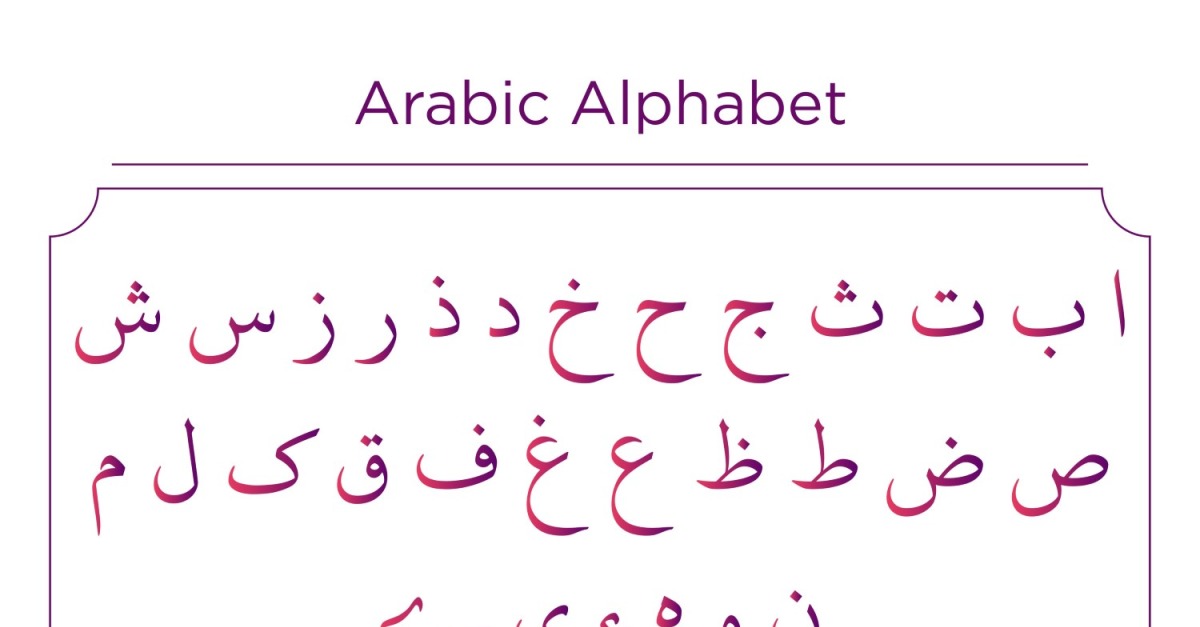
Noori Nastaliq Arabic Alphabet Calligraphy Fonts Style
The inscription is made in professional Arabic calligraphy. Arabic Alphabet in modern design with the author's inscription.